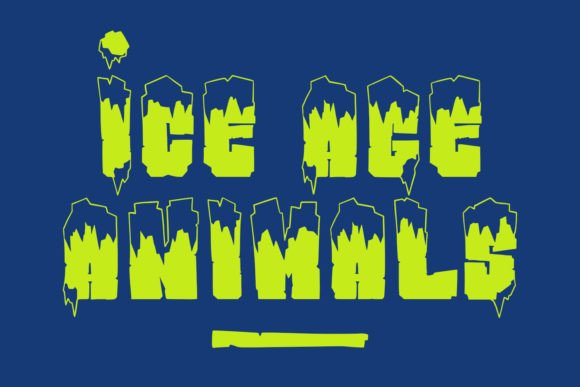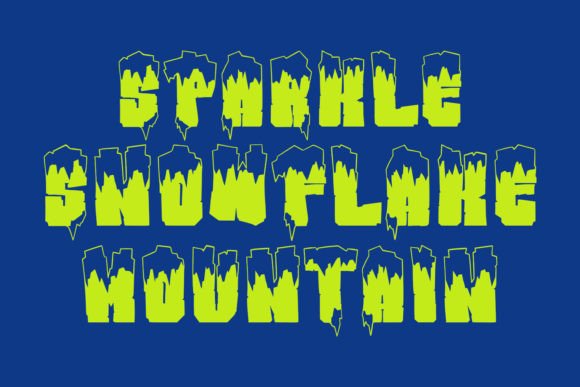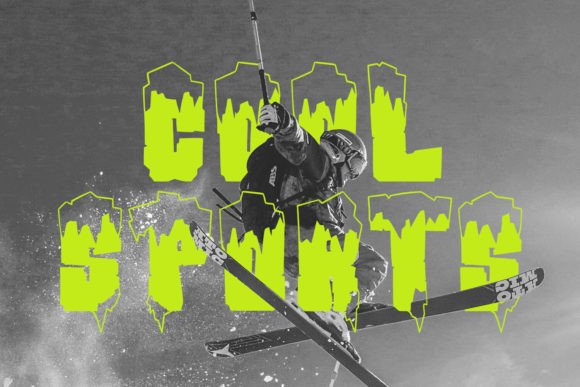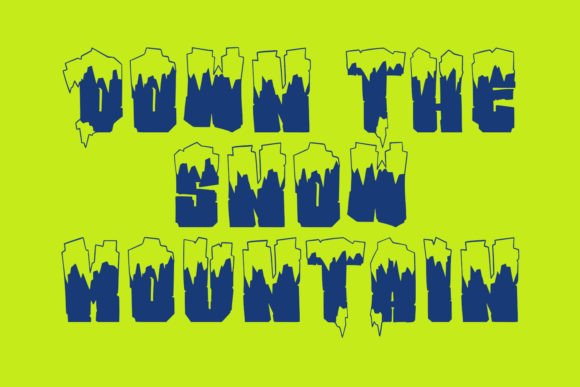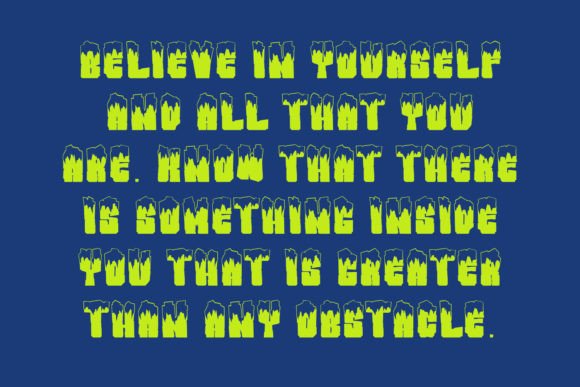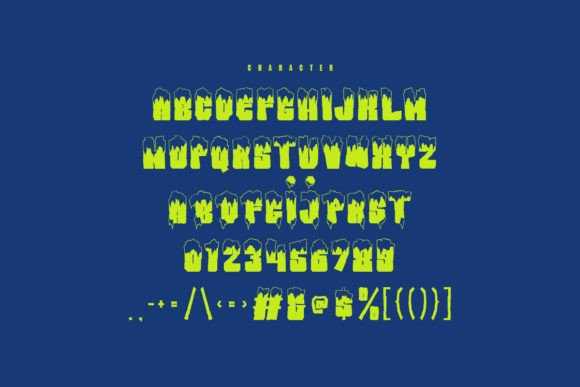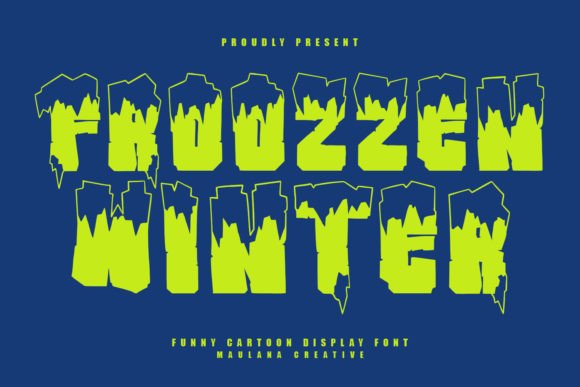
Froozzen Winter Font: Add a Touch of Frosty Fun to Your Designs
Are you looking for a font that captures the essence of winter and adds a playful twist to your designs? Look no further than the Froozzen Winter Font! This fun, handmade display font is perfect for designers and crafters who want to create stunning winter-themed projects. In this article, we’ll dive into the features and benefits of the Froozzen font and explore how you can use it to elevate your designs.
What is Froozzen Winter Font?
Froozzen is a unique and eye-catching winter display font that boasts an ice-cold stroke and playful characters. Its handmade design gives it a personal touch, making it perfect for projects that require a dash of personality. The font includes alternates, which allow you to boost your creative projects and add a touch of whimsy to your designs.
Key Features of Froozzen Winter Font
- Fun and playful design: Froozzen’s ice-cold stroke and playful characters make it perfect for winter-themed projects.
- Handmade with love: The font’s handmade design gives it a personal touch and makes it stand out from other fonts.
- Includes alternates: Froozzen’s alternates allow you to add variety to your designs and boost your creativity.
- Multi-language support: The font supports multiple languages, making it a great choice for designers who work with international clients.
- Versatile: Froozzen is great for logo design, social media, movie titles, book titles, short or long text, and pairs well with sans or serif fonts for secondary text.
How to Use Froozzen Winter Font in Your Designs
Froozzen is a versatile font that can be used in a variety of design projects. Here are some ideas to get you started:
- Logo design: Use Froozzen to create a unique and memorable logo for your business or brand.
- Social media graphics: Add a touch of winter fun to your social media graphics with Froozzen’s playful characters.
- Movie and book titles: Use Froozzen to create eye-catching titles for movies and books.
- Winter-themed projects: Froozzen is perfect for winter-themed projects, such as holiday cards, invitations, and flyers.
Why Choose Froozzen Winter Font?
So, why should you choose Froozzen Winter Font for your designs? Here are just a few reasons:
- Unique design: Froozzen’s handmade design makes it stand out from other fonts.
Tips for Pairing Froozzen with Other Fonts
Froozzen pairs well with a range of fonts, including sans and serif fonts. Here are some tips for pairing Froozzen with other fonts:
- Use a sans font for secondary text: Pair Froozzen with a clean sans font, such as Arial or Helvetica, for secondary text.
- Use a serif font for body text: Pair Froozzen with a serif font, such as Times New Roman or Georgia, for body text.
- Experiment with different font combinations: Don’t be afraid to experiment with different font combinations to find the perfect pairing for your design.
In conclusion, the Froozzen Winter Font is a fun and versatile font that’s perfect for designers and crafters who want to add a touch of winter fun to their designs. With its handmade design, ice-cold stroke, and playful characters, Froozzen is sure to make your designs stand out. Whether you’re creating a logo, social media graphics, or winter-themed projects, Froozzen is a great choice. So why wait? Download Froozzen Winter Font today and start creating stunning designs!